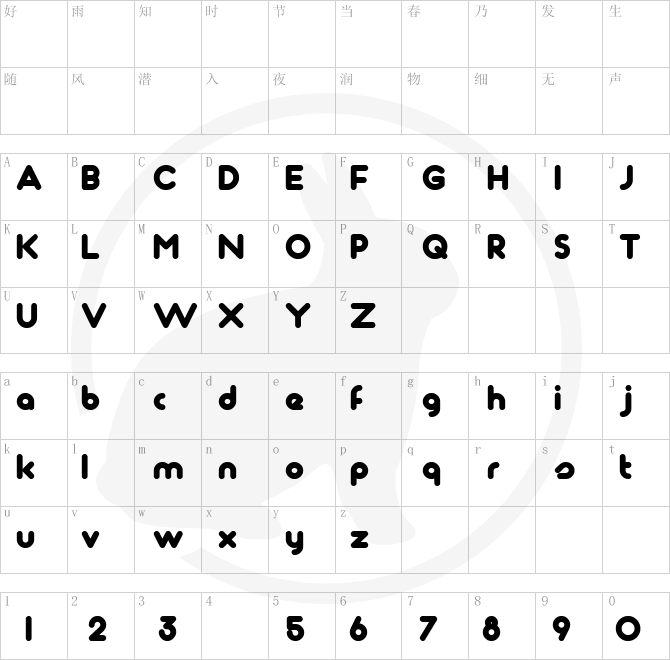
- Font Name:Maagkramp
Maagkramp.ttf is a very beautiful artistic font, Maagkramp.ttf is widely used in the design and printing of various books and pictures,Maagkramp.ttf has a strong visual impact,Maagkramp.ttf is a commonly used font in newspapers, magazines and books, and is used in posters, e-commerce Poster design, store design, logo design, font design and other fields.Maagkramp.